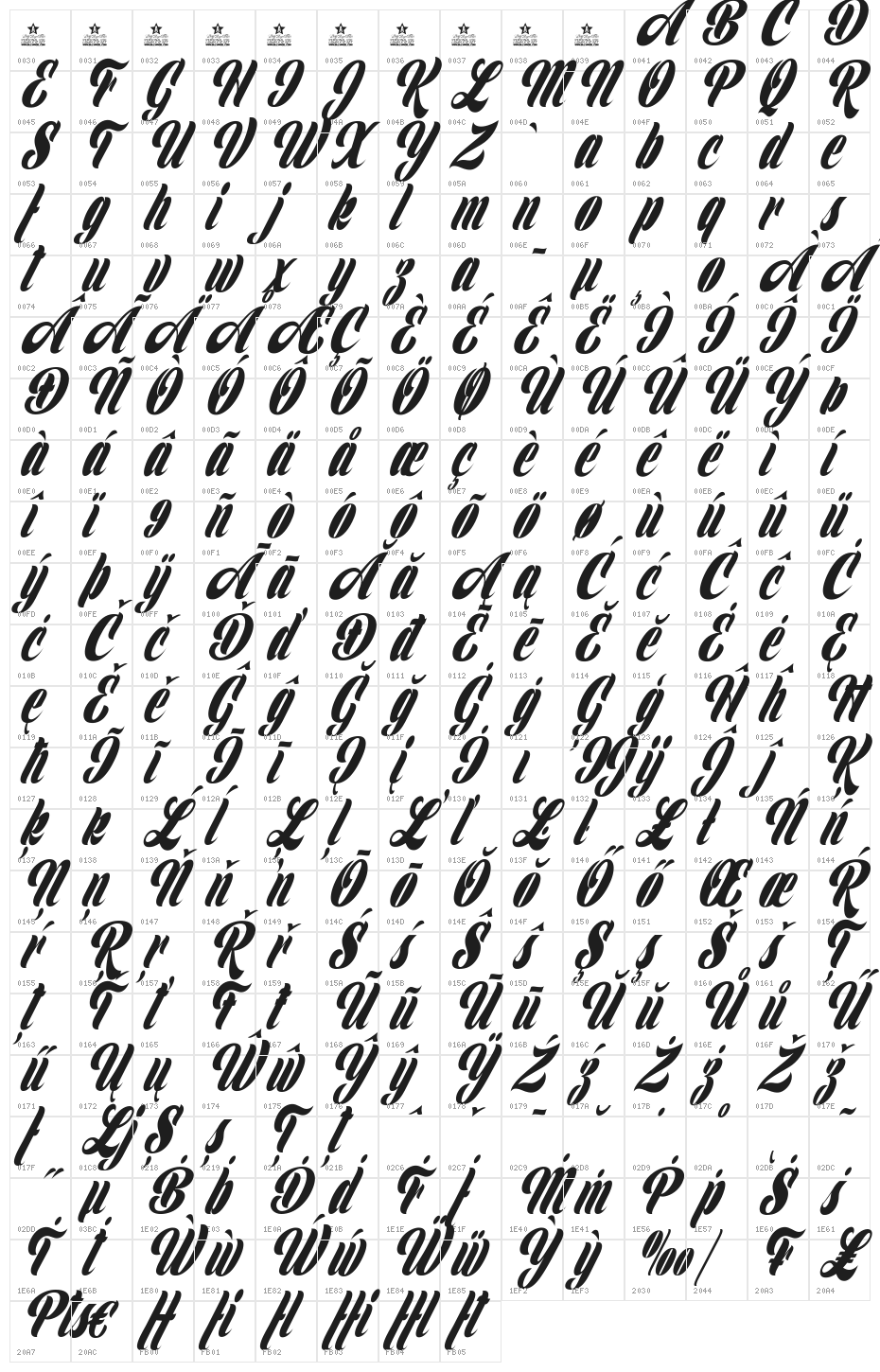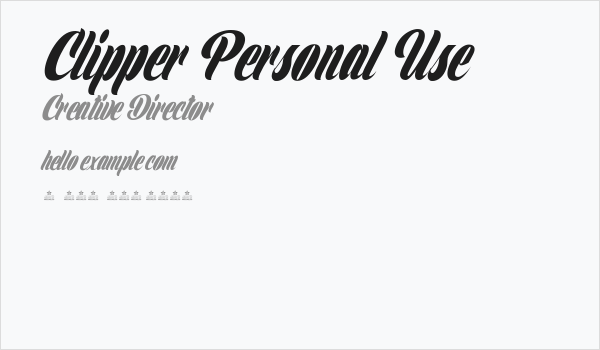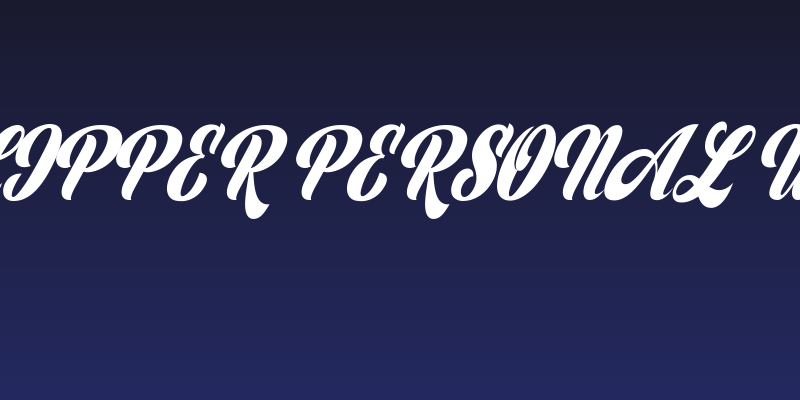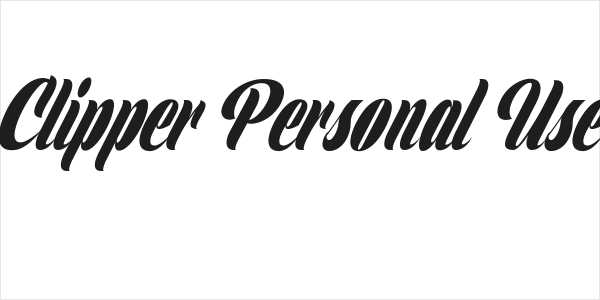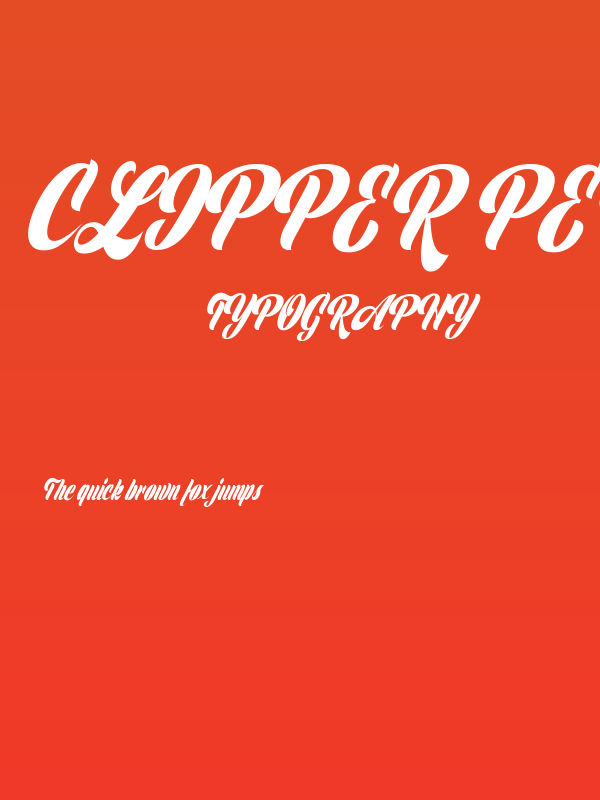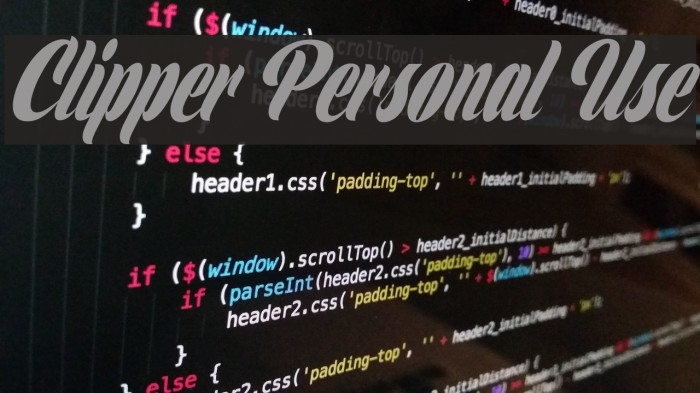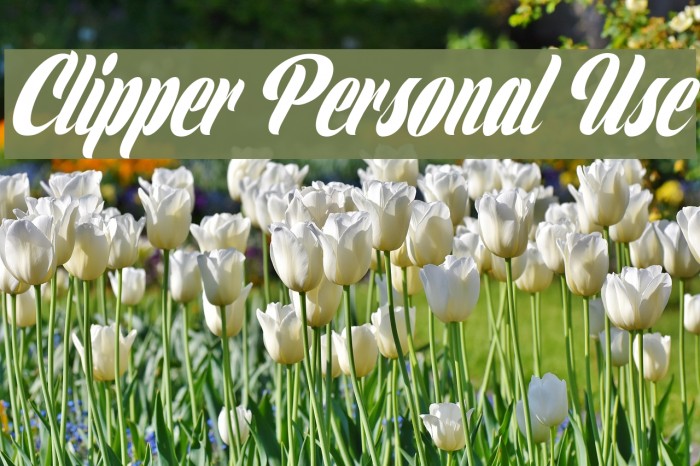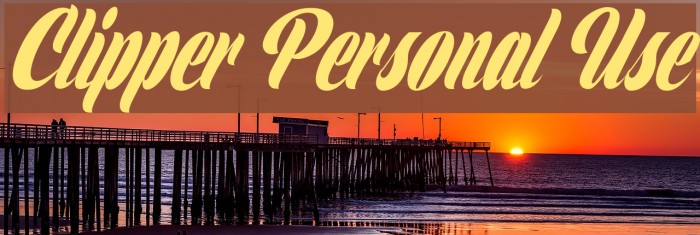
Clipper Personal Use Font
Clipper Personal Use Description
This font features a bold and dynamic script style with a strong presence. The letters are connected, giving it a fluid and continuous appearance, reminiscent of traditional calligraphy. The strokes are thick and consistent, providing a sense of strength and confidence. The uppercase letters are particularly striking, with elegant curves and flourishes that add a decorative touch. The lowercase letters maintain the same boldness, ensuring readability while still offering a stylish flair. This font is well-suited for making a statement, with its high contrast and dramatic style.
| Proposed Projects | Ideal for branding, logos, headlines, and invitations where a bold, stylish impact is desired. |